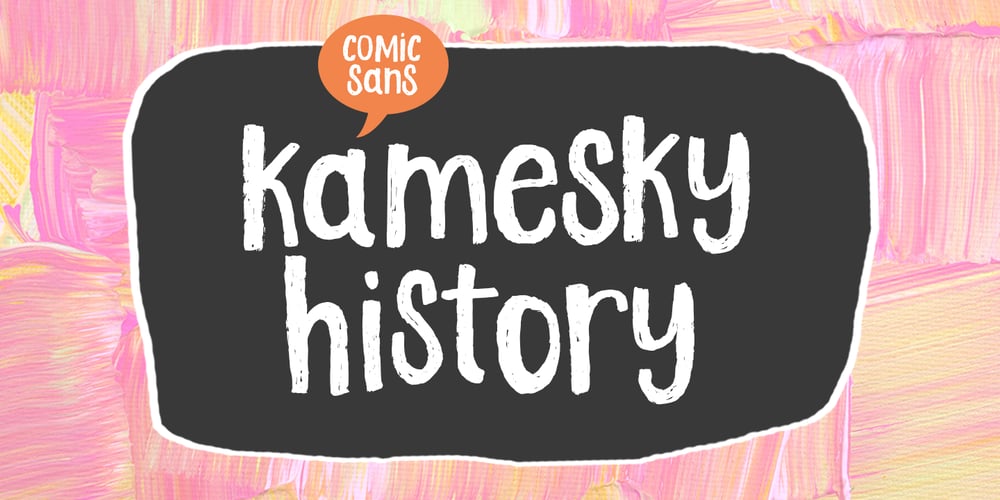
Kamesky History Font Family was designed by Naufal Paramata and published by Youngtype. Kamesky History contains 1 styles and family package options. Kamesky History is a hand brush font made with brushes and ink. This typeface is ideal for use in thick watercolor designs or in those needing a hand writing touch such as blog titles, posters, comic books, t-shirts, clothing, book covers, business cards, greeting cards, branding, merchandising and more.Kamesky History contains a full set of: Uppercase Lowercase Punctuation numbers multi-lingual support Thank you!